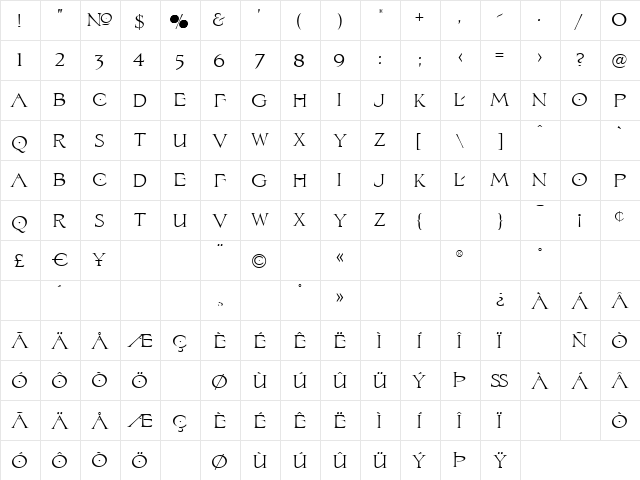
LHF Birgitta Regular Font Preview
LHF Birgitta Regular
LHF Birgitta Regular Font Details
Design Context for LHF Birgitta Typeface
LHF Birgitta takes a measured approach to typography — its balanced proportions and neutral character make it a reliable workhorse for both digital and print work.
Pro Tip: Pair LHF Birgitta with a font of contrasting weight or personality to build a more expressive typographic hierarchy.